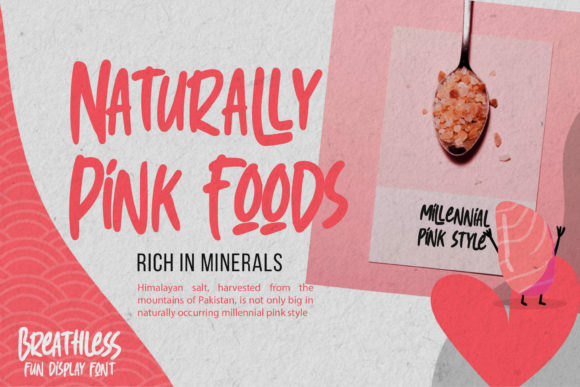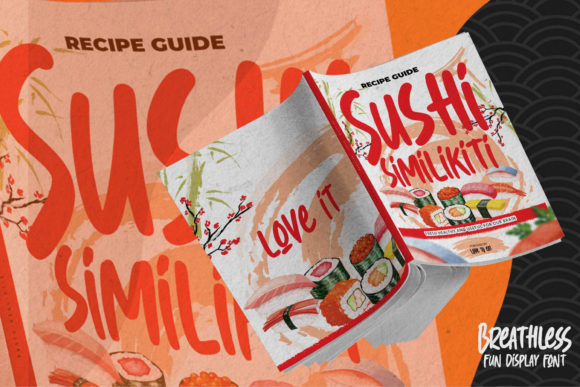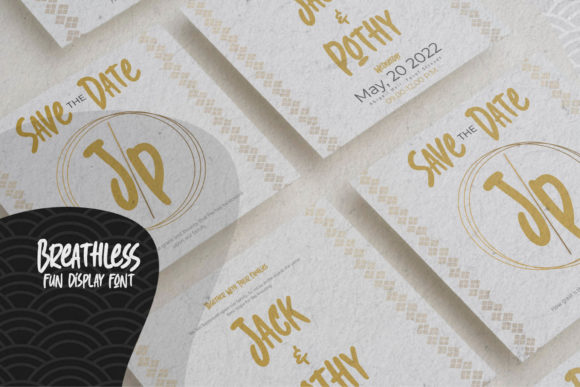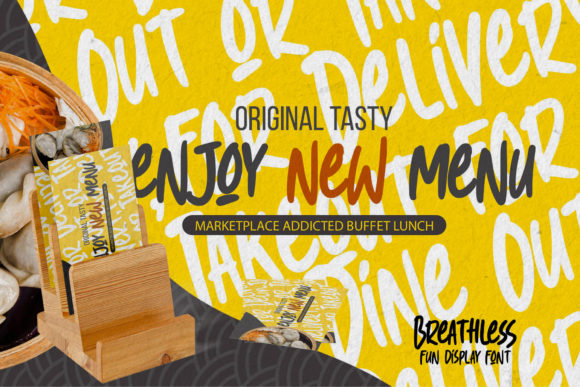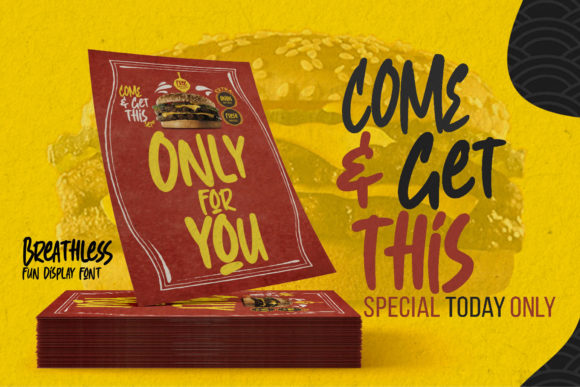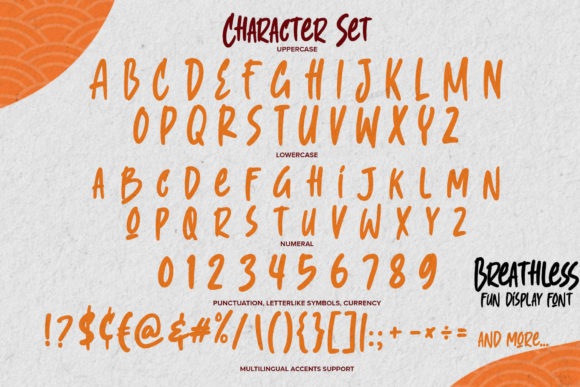
The Breathless Font: A Cool and Urban Styled Display Font for Your Designs
I’ll never forget the time I was working on a project for a sportswear brand, and I was struggling to find the perfect font to capture their urban and edgy vibe. The client was specific about wanting a font that was cool, modern, and attention-grabbing. After hours of searching through font libraries and trying out different combinations, I stumbled upon the Breathless font. It was love at first sight! 💕
The Breathless font is a cool and urban styled display font that has become a staple in my design toolkit. Its unique blend of modern and edgy elements makes it perfect for designs such as t-shirts, sportswear, logos, advertisements, clothing, and more.
An Honest Review of Breathless Font
What I Love About Breathless Font
- ✨ Unique and modern design that stands out from the crowd
- ✅ Highly legible and readable, even at small sizes
- 💥 Perfect for attention-grabbing headlines and titles
- 🎨 Versatile and can be used for a wide range of design projects
While the Breathless font is an amazing addition to any design project, there are a few quirks to be aware of:
- 🤔 Some characters may not work well in all contexts, especially when used at very small sizes or in combination with other fonts.
- ⚠️ The font may not be suitable for body text or long paragraphs, as it’s primarily designed for display purposes.
The Backstory of Breathless Font
The Breathless font was designed by a team of typographers who wanted to create a modern and edgy font that would capture the spirit of urban culture. The font’s unique design is inspired by the graffiti and street art that can be found in cities around the world. The designers behind Breathless wanted to create a font that would be perfect for designs that require a sense of energy and movement.
Q: What is the Breathless font best used for?
A: The Breathless font is best used for designs that require a cool and urban vibe, such as t-shirts, sportswear, logos, advertisements, and clothing.
Q: Is the Breathless font suitable for body text?
A: No, the Breathless font is primarily designed for display purposes and may not be suitable for body text or long paragraphs.